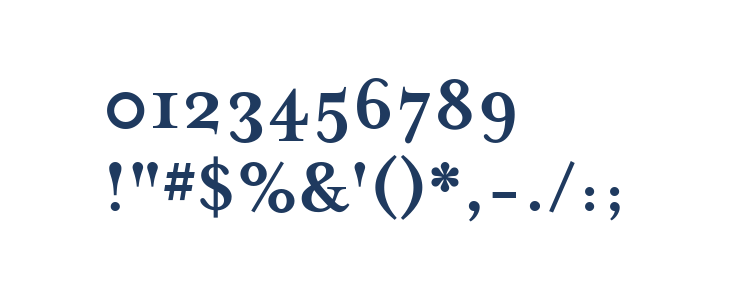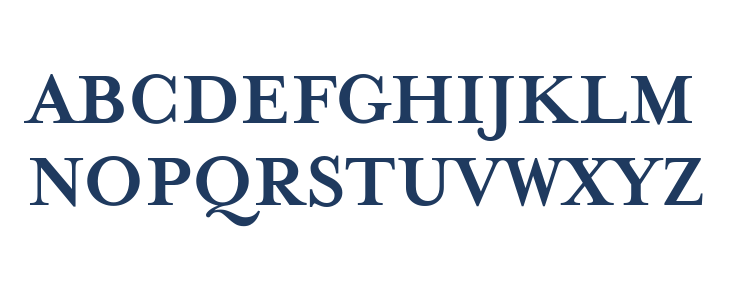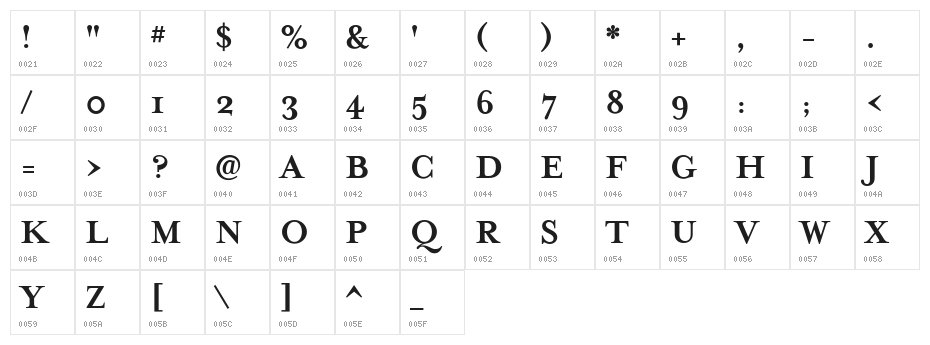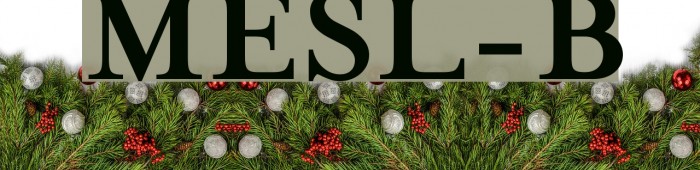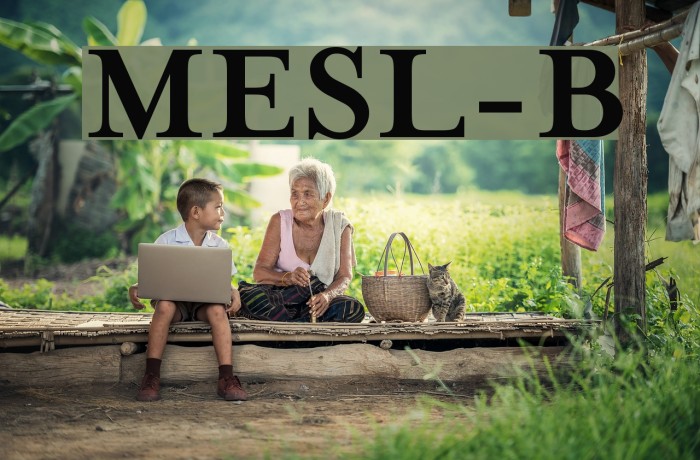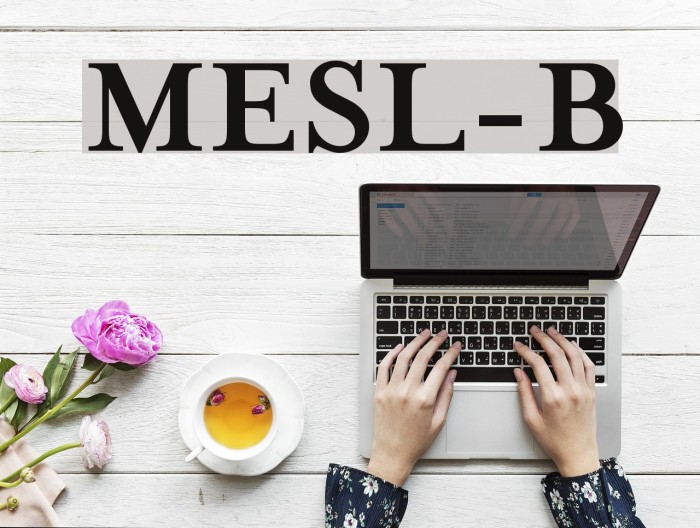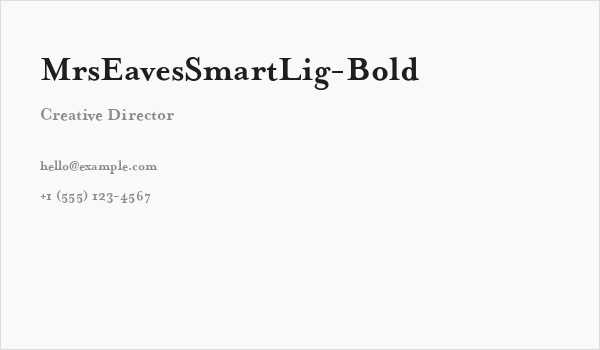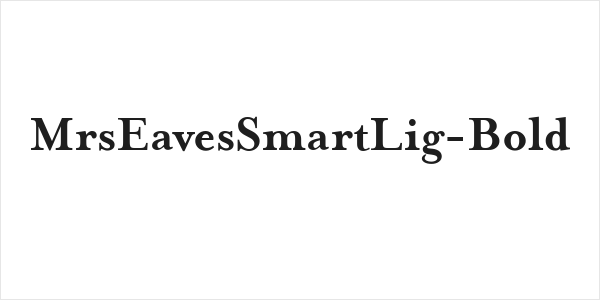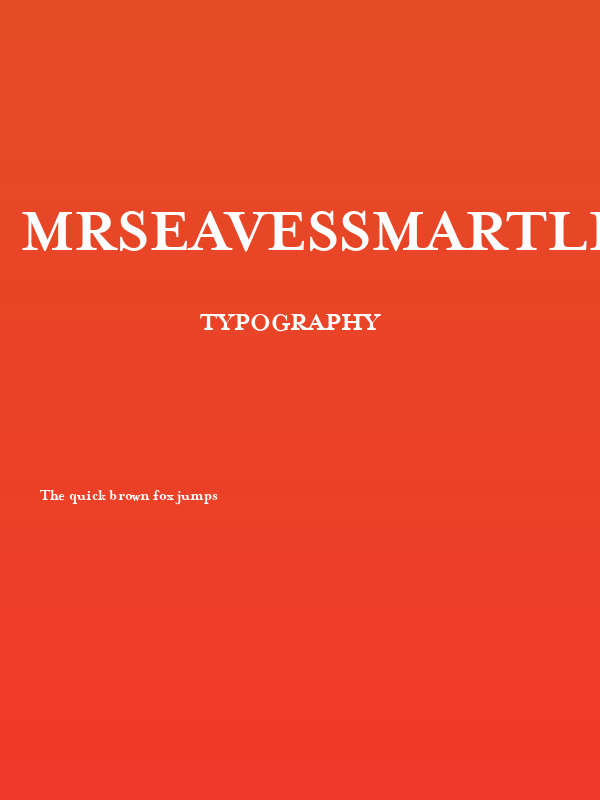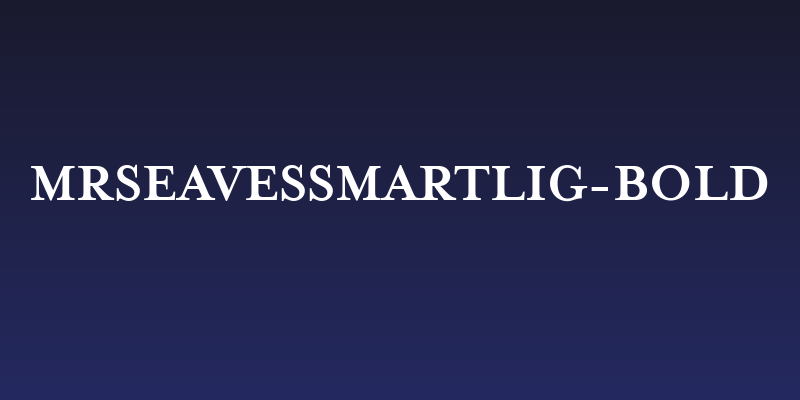
MrsEavesSmartLig-Bold Font
MrsEavesSmartLig-Bold Description
This font exhibits a classic serif style with elegant, refined strokes and a bold weight. The serifs are pronounced, providing a traditional and sophisticated appearance. The uppercase letters are well-proportioned, with a slight contrast in stroke thickness that adds to the font's readability and charm. The lowercase letters maintain a consistent style, with rounded forms and clear distinctions between each character. The numerals are designed to match the overall aesthetic, offering a harmonious blend with the alphabetic characters. Special characters are included, enhancing the font's versatility for various applications.